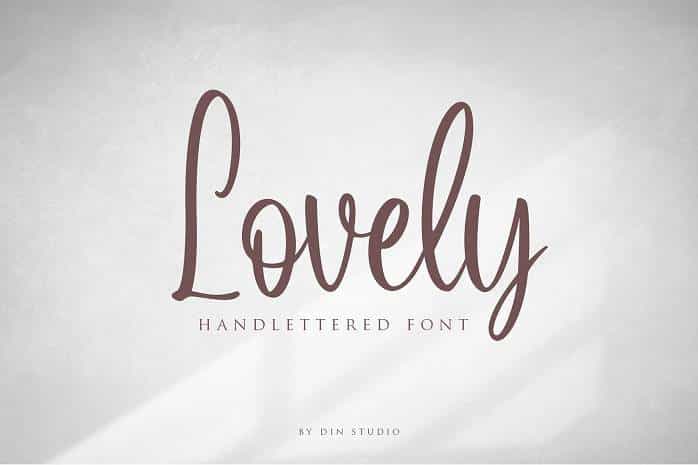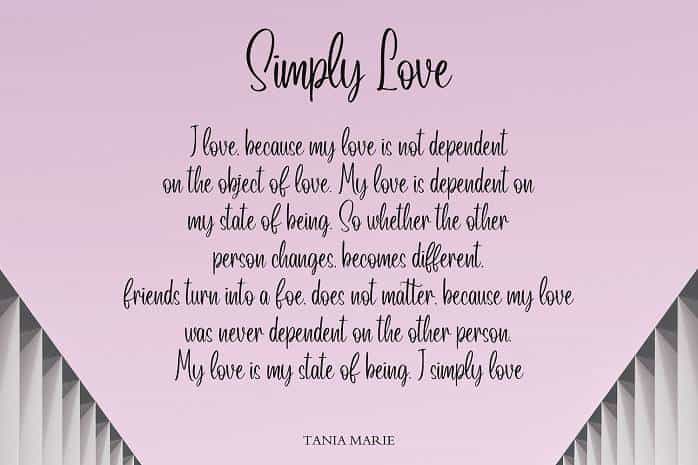
Need a font suitable for nice project design? The answer you are looking for is Lovely Script! The Lovely Script font is suitable for many project designs. For example: posters and banners; logos and book covers; headings, printed products and merchandise, as well social media stuff too. And so on – you name it! To see more wonderful applications for this font, just have a look at its preview.